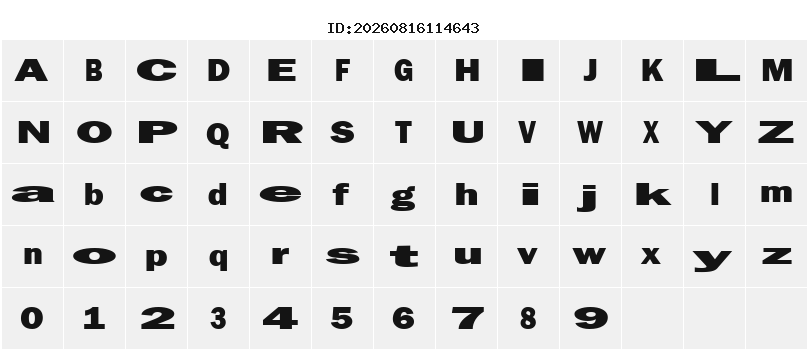
Staley Preview
• Font Name: Staley
• Full Font Name: Staley
About Staley.ttf
Staley.ttf is a modern, elegant sans-serif font designed for ultimate readability and visual harmony. Perfect for branding, headlines, web design, and print materials.